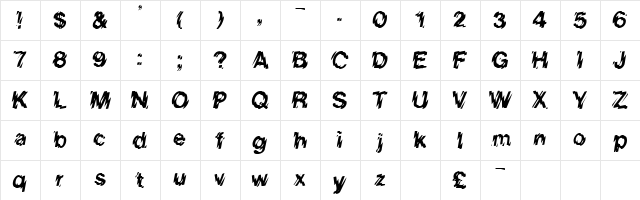
REGINIA Regular
Design Context for REGINIA Typeface
REGINIA is a composed and adaptable typeface that performs quietly and consistently across a wide range of design contexts.